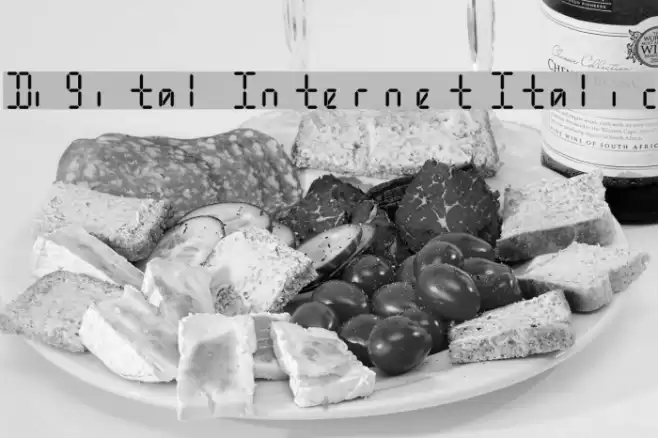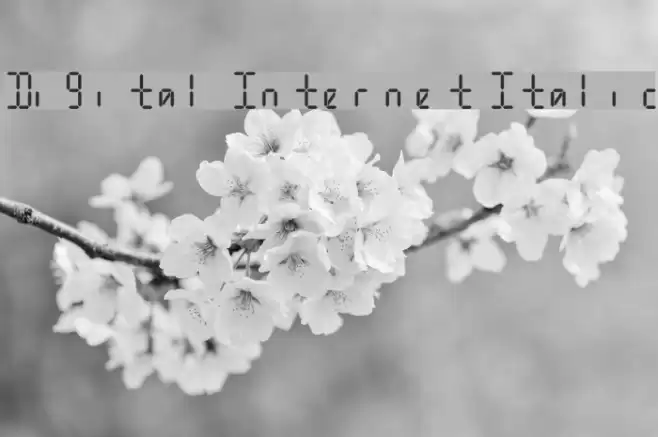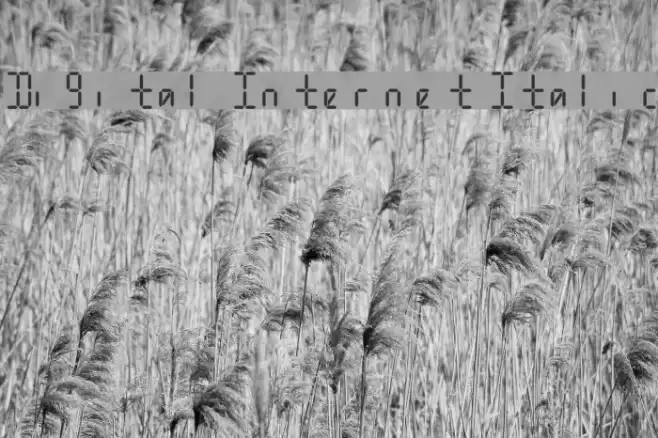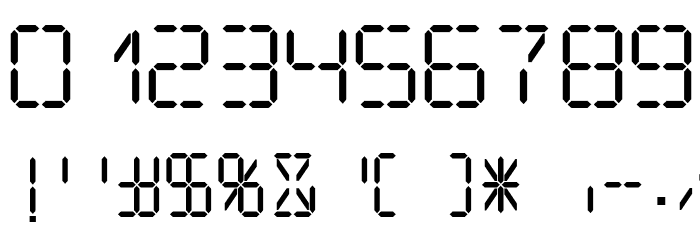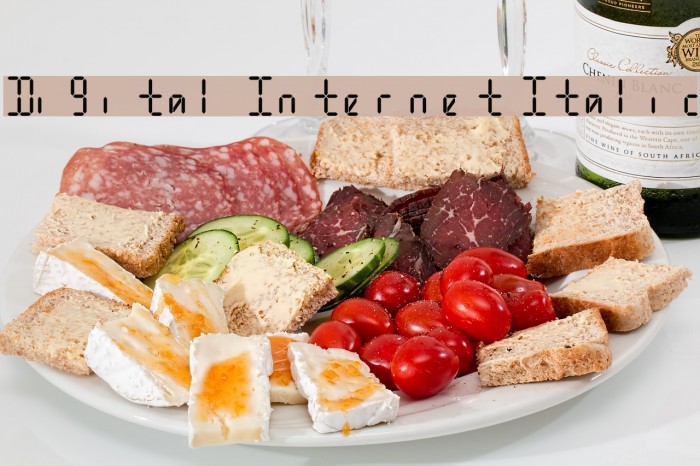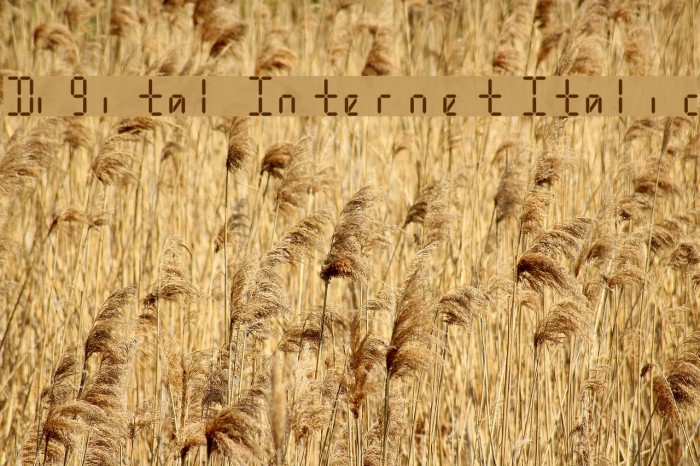
Digital Internet Italic Font
Digital Internet Italic Description
This font features a digital, segmented style reminiscent of classic LED displays, often seen in digital clocks and calculators. The characters are composed of distinct segments that form each letter and number, creating a futuristic and technological appearance. The uppercase and lowercase letters maintain a consistent design, with clear differentiation between each character. The numbers are similarly styled, ensuring readability and uniformity across the set. Special characters are included, matching the segmented aesthetic. This font is ideal for projects that require a digital or retro-tech look, providing a unique and recognizable style.
A segmented, digital-style font inspired by LED displays, perfect for tech-themed designs from Uncategorized fonts.
- Proposed Projects: Ideal for digital interfaces, tech-themed posters, retro-style designs, and electronic device displays.
- Use Case: Headlines, Logos, Digital displays